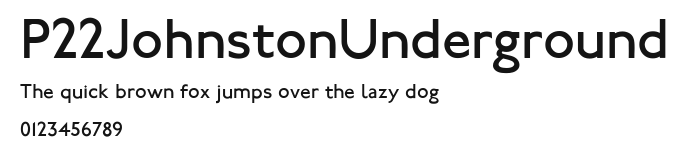
P22JohnstonUnderground Preview
About P22JohnstonUnderground.ttf
P22JohnstonUnderground.ttf is a modern, elegant sans-serif font designed for ultimate readability and visual harmony. Perfect for branding, headlines, web design, and print materials.